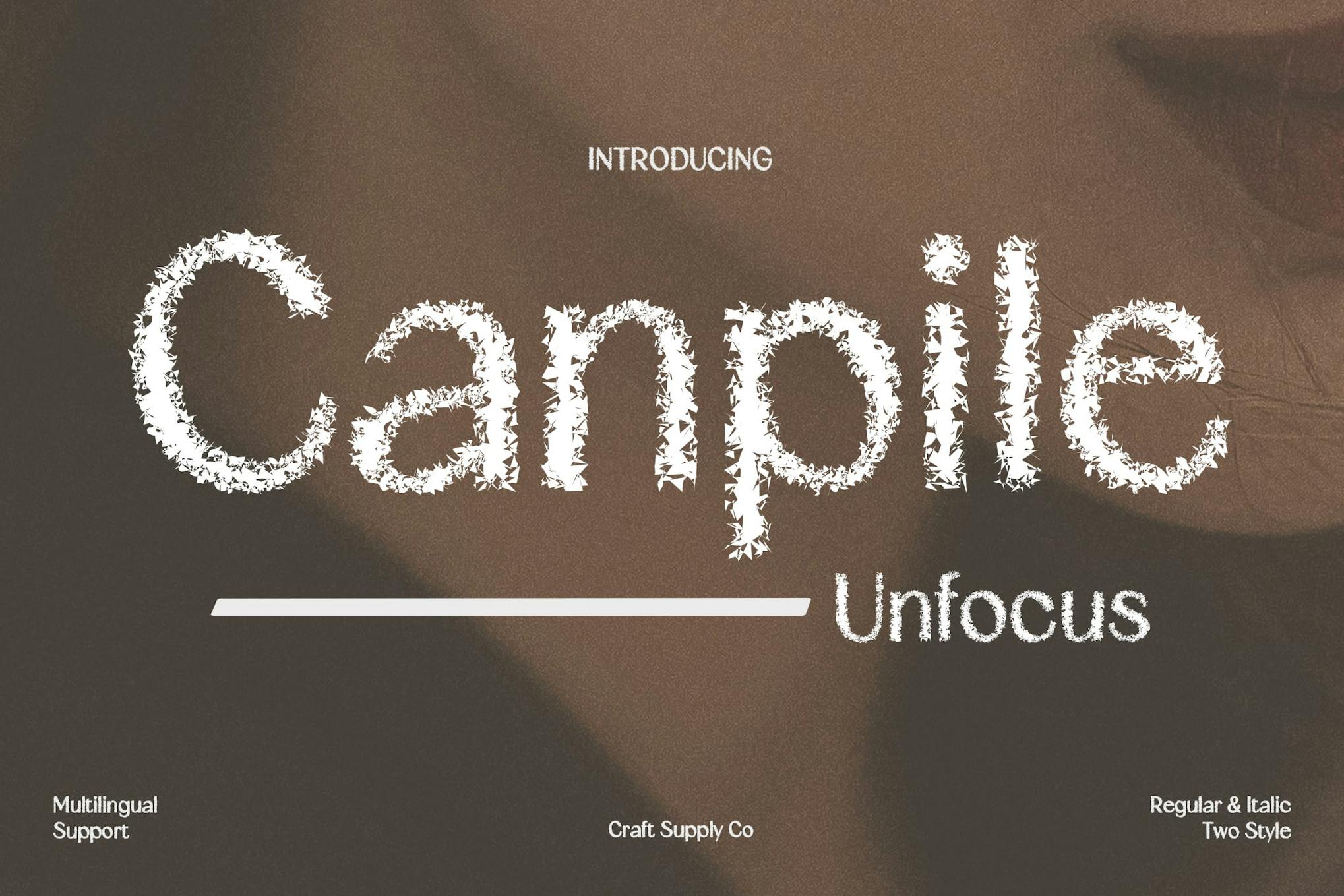
Canpile Unfocus Font
Canpile Unfocus Font accumulates sustainable waste management branding, recycling initiative campaigns, environmental cleanup organizations, zero-waste lifestyle publications, circular economy presentations, waste reduction education materials, eco-friendly packaging designs, sustainability consulting services, green technology companies, environmental awareness campaigns, composting facility signage, and responsible consumption marketing where resourceful accumulation and environmental unfocus create conscious sustainability experiences.
This resourceful typeface generates excitement through its perfect embodiment of sustainable accumulation principles and environmental responsibility that creates typography reflecting the wisdom of circular economy thinking and waste reduction innovation. Canpile Unfocus Font captures the essence of thoughtful resource management with its gently accumulated letterforms that suggest the careful collection and purposeful organization of materials for maximum environmental benefit. The font's sustainable design approach incorporates elements that evoke responsible consumption, resource optimization, and the mindful accumulation of knowledge and materials that leads to environmental solutions. Its distinctive character reflects the patience, planning, and environmental consciousness that define authentic sustainability practices and circular economy innovations.
The Canpile Unfocus Font family encompasses multiple sustainability variations including Regular, Light, Medium, Bold, and Eco versions, each maintaining the font's characteristic environmental responsibility while offering different levels of sustainable impact. The collection features resource-conscious blur effects, accumulation-inspired treatments, and sustainable textures that enhance its eco-friendly aesthetic. Additional elements include recycling symbols, sustainability ornaments, circular economy decorative borders, and environmental flourishes that reinforce the font's connection to waste reduction and responsible resource management.
Environmental organizations and sustainability professionals consistently select Canpile Unfocus Font Free Download for projects requiring typography that communicates environmental responsibility and sustainable resource management. This remarkable typeface excels in applications where establishing eco-friendly credibility and conveying circular economy wisdom are essential for environmental and business success. The font's sustainable qualities make it particularly effective for green technology companies, environmental consulting firms, and sustainability education programs targeting audiences who value responsible consumption and environmental stewardship.
Whether you're designing sustainability reports, creating environmental education materials, developing circular economy campaigns, or crafting responsible consumption communications, Canpile Unfocus Font delivers unmatched environmental authenticity. Its ability to convey resource consciousness, environmental responsibility, and sustainable accumulation makes it invaluable for environmental advocates seeking typography that genuinely supports circular economy principles. The font's resourceful presence ensures your designs will communicate the thoughtful planning and environmental wisdom that define exceptional sustainability communications and responsible resource management experiences.